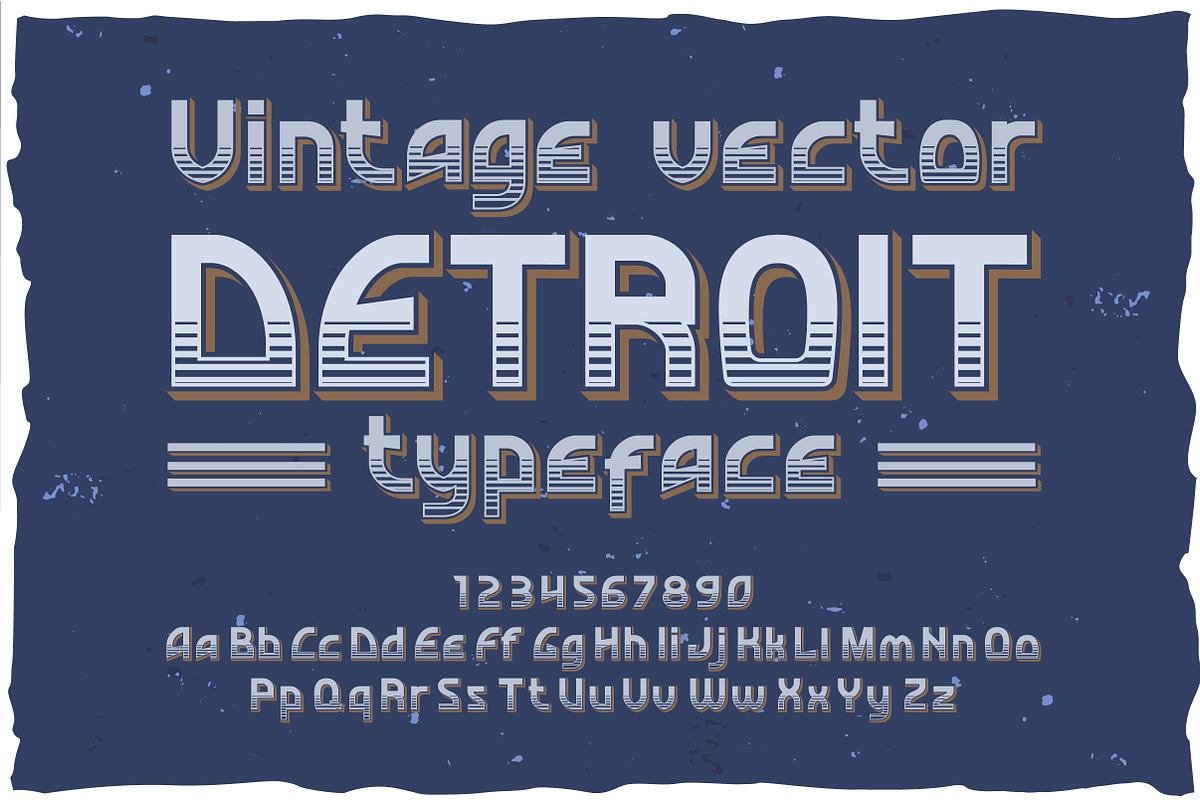
The Detroit OTF Vintage Label Font Free Download is a classic, bold typeface inspired by vintage label designs. Perfect for creating retro logos, posters, product labels, branding, and packaging, this font brings a nostalgic, old-school feel to your projects. Please note, for commercial use, a license must be purchased. You can download it for free for testing purposes.
With its strong letterforms and vintage label design, the Detroit OTF Vintage Label Font Free Download is ideal for projects that require a bold, retro touch. Whether you’re designing for a craft beer label, vintage-inspired branding, or advertising, this font will add a touch of timeless charm to your designs.